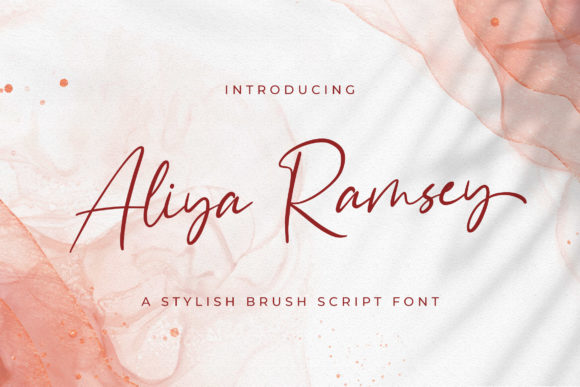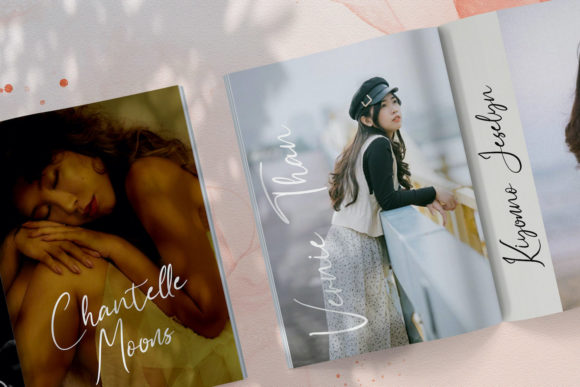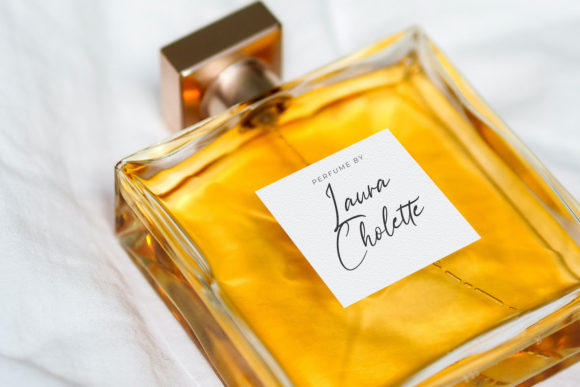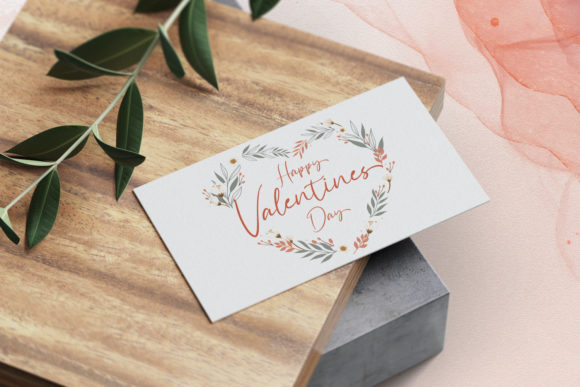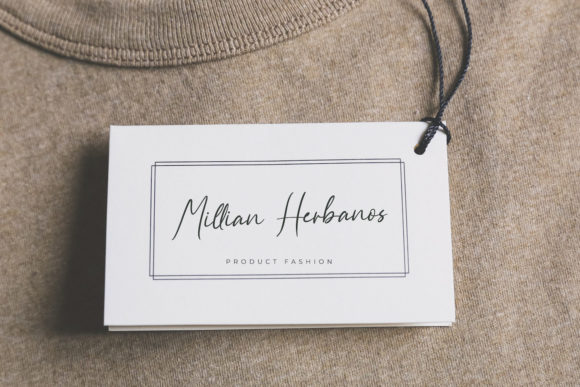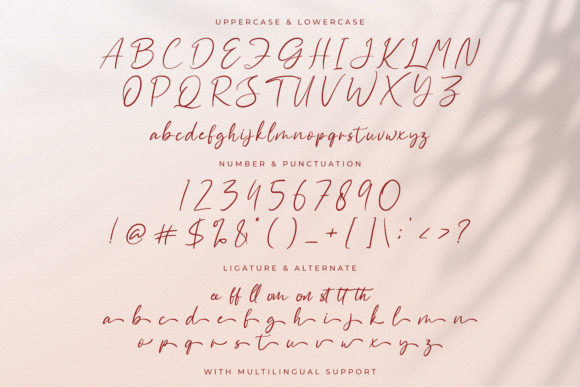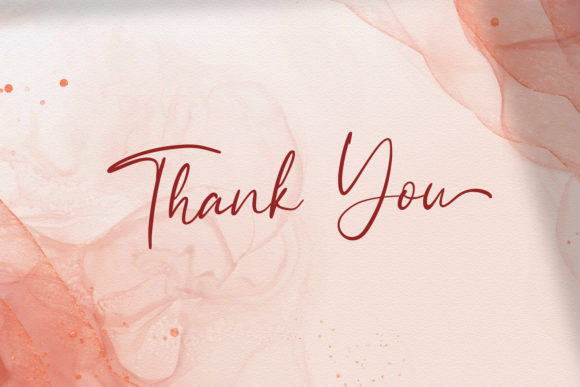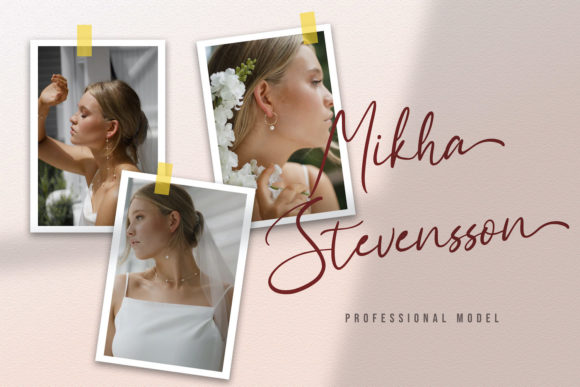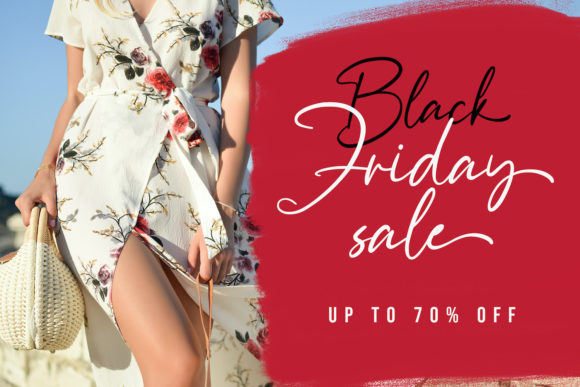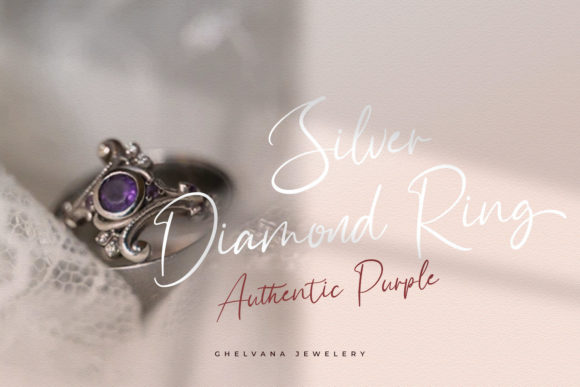
Aliya Ramsey Font
About Aliya Ramsey Font
Aliya Ramsey is a delicate, elegant and flowing handwritten font. It has beautiful and well balanced characters and as a result, it matches a wide pool of designs. Add it to your most creative ideas and notice how it makes them come alive!